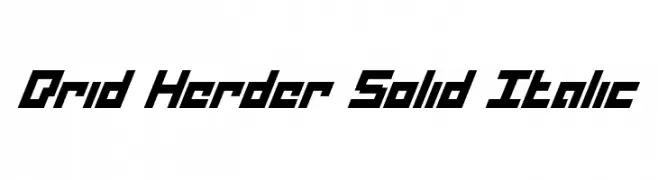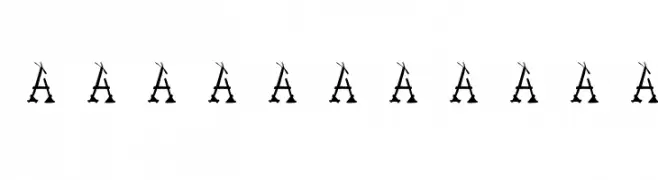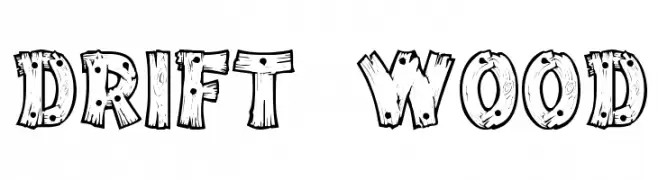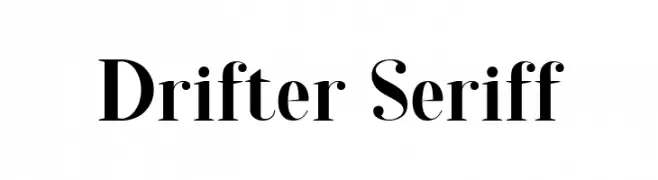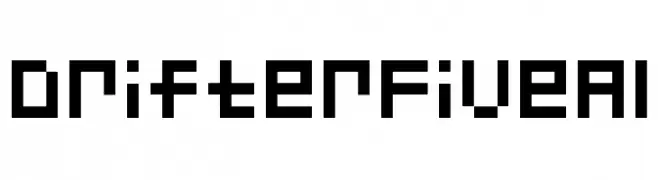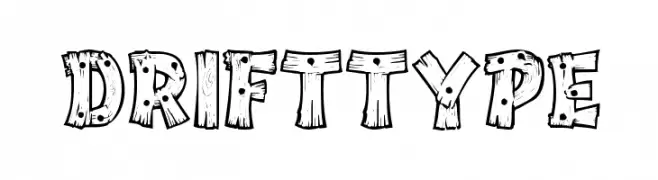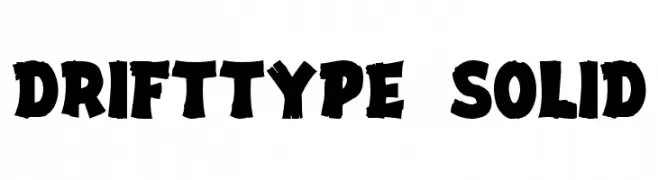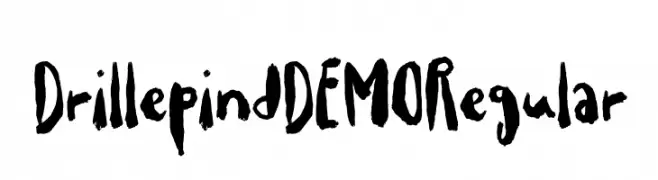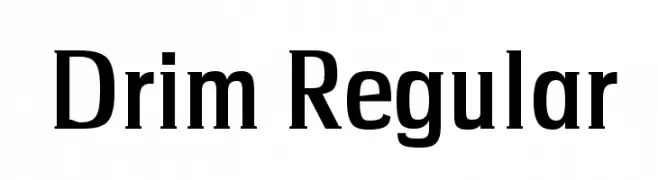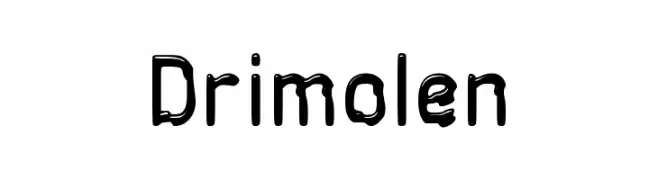
A bold, angular, and italicized font with a futuristic design.
A rustic, hand-drawn font with a driftwood texture and bold, organic strokes.
A bold, modern serif font with elegant strokes and sharp serifs.
A bold, geometric font with a digital, futuristic style.
A bold, hand-drawn font with a playful, textured design.
A bold, hand-drawn font with thick, uneven strokes and a playful, energetic style.
A bold, hand-drawn font with a textured, artistic style.
A modern sans-serif typeface with clean lines and balanced proportions.
A bold, hand-drawn font with an organic, wavy design.